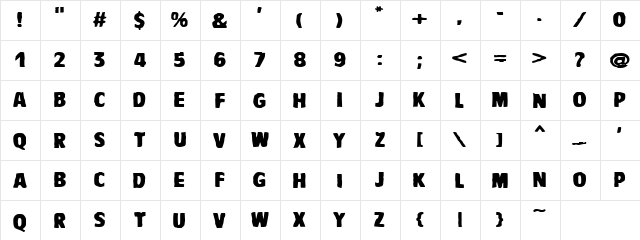
VTCBadDrip Regular
| Designer | WolfBainX |
Design Context for VTCBadDrip Typeface
VTCBadDrip takes a measured approach to typography — its balanced proportions and neutral character make it a reliable workhorse for both digital and print work.